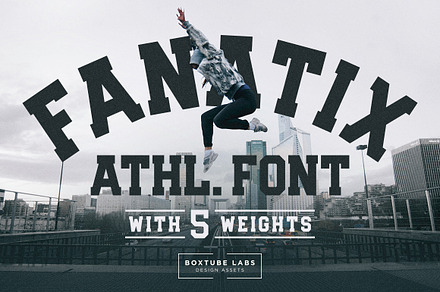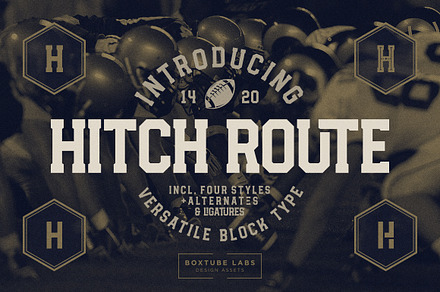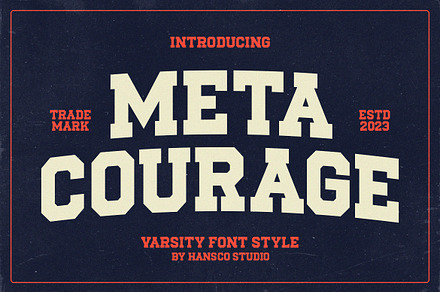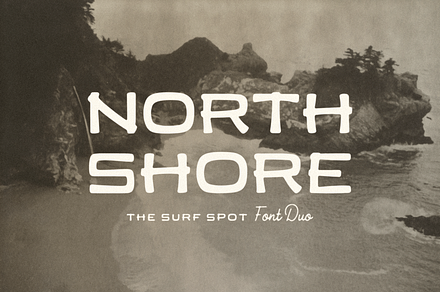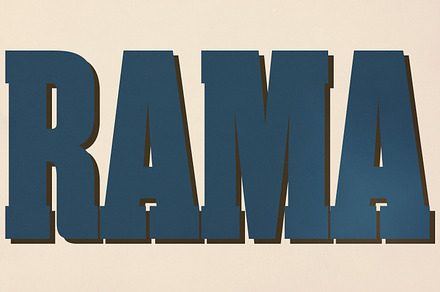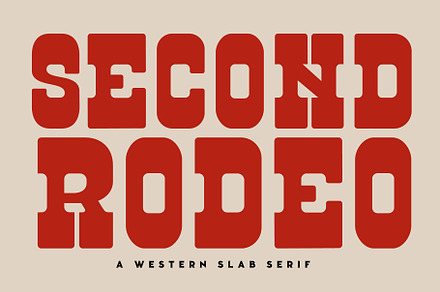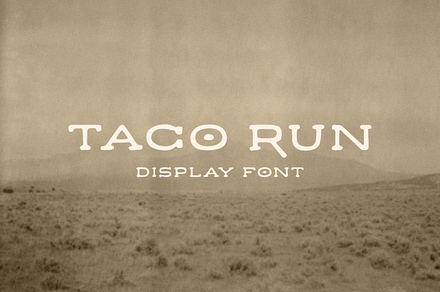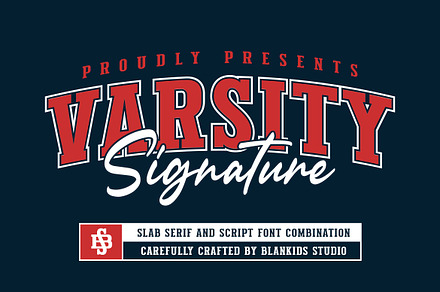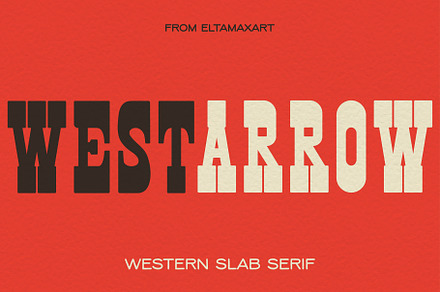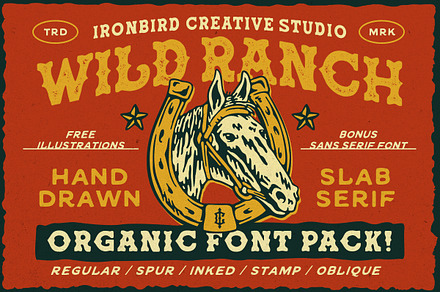
Slab serif typefaces are defined by their sturdy, block-like serifs—a design feature that gives them an undeniable sense of weight and permanence. This versatile style is perfect when a design requires immediate impact, making it an industry standard for powerful headlines, posters, signage, and brand identities. Whether you aim for the nostalgic charm of early 20th-century Americana or a crisp, modern edge, these robust serifs provide stability and undeniable character that elevates any project from basic to breathtaking.
This curated collection offers unparalleled variety within the slab serif aesthetic. You will find specialized fonts like Rama Slab and Second Rodeo for classic vintage looks, alongside Wild Ranch and West Arrow for rugged Western flair. For sports-themed projects, Meta Courage, Fanatix, and Hitch Route provide perfect varsity and athletic vibes. Furthermore, options such as North Shore + Mavericks and Varsity Signature ensure you have the ideal typographic pairing to complete any branding endeavor.
Rama Slab
Need a font that captures the nostalgic charm of the 19th century? Rama Slab is an antiqued slab serif typeface, evoking the distinct look of classic wood type. This condensed and impactful font is perfect for designing striking titles, professional posters, or any layout demanding a bold, vintage presence. With 18 comprehensive styles available, designers can easily adjust the tone while maintaining visual strength. Furthermore, the inclusion of an alternate 'r' glyph via OpenType features grants superior typographic control when crafting sophisticated, headline-focused branding projects.
North Shore + Mavericks
Capture that ultimate tropical vibe with the North Shore + Mavericks font duo. Perfect for capturing a mid-century surf aesthetic, this pairing offers versatility for bold branding projects. Use North Shore as a striking tropical display font for major headers and signage, while Mavericks provides elegant flare through its hand-lettered script. Ideal for designing album covers, apparel graphics, or unique web layouts that demand a groovy, nostalgic touch. This combination delivers comprehensive language support across multiple locales, making it essential for global branding needs.
Meta Courage Varsity Font
Meta Courage Varsity Font captures the authentic energy of classic athletics and team spirit. Designed specifically as a robust varsity or jersey display font, it provides immediate visual impact for sporting goods and school-related branding. Use Meta Courage to create compelling headers, sportswear logos, or merchandise designs that embody strength and tradition. Its bold structure makes it perfect for capturing the excitement associated with games day and team pride. Integrating this distinctive collegiate typeface instantly elevates any project requiring a powerful, athletic aesthetic.
Second Rodeo
Embrace a genuine retro feel with Second Rodeo, a distinctive Western slab font featuring sharp lines and undeniable character. This display typography is perfect for designers seeking authentic vintage flair in their branding projects. Utilize its robust structure to create compelling headlines, powerful logotypes, or memorable stickers. Beyond print media like packaging design and posters, Second Rodeo excels on apparel and merchandise, giving your brand identity a rustic, old-west edge. Pair it with modern graphics for unique websites or magazine layouts that demand high visual impact.
Fanatix - Display Font
Fanatix excels as a dynamic display font, delivering a modern edge perfect for high-impact branding and athletic design. This versatile sports typeface supports everything from corporate logos and apparel graphics to striking poster layouts. With weights spanning Thin through Heavy, designers can achieve depth and visual hierarchy in their projects. Furthermore, the unique Inline and Triline styles provide instant creative variations, ensuring your final designs stand out. Excellent language support across Western languages makes Fanatix an ideal choice for international branding needs.
West Arrow - Western Font
Need a font that captures the rugged spirit of the Wild West? West Arrow is a hand-drawn Western typeface featuring robust slab serifs and original shapes reminiscent of classic frontier signage. This versatile, retro vintage font provides an immediate sense of Americana, making it perfect for branding projects demanding authentic historical flair. Integrate West Arrow into designs for saloon posters, western apparel lines, or rustic menus to evoke genuine nostalgia. Its strong, distinct character makes headlines pop, giving your digital work the undeniable grit and style of a bygone era.
Varsity Signature a font Combination
Varsity Signature delivers a dynamic, sporty font combination perfect for athletic branding and collegiate themes. This versatile typeface makes creating high-impact logotypes, promotional posters, and product packaging simple. With three distinct styles—including script and outline options—it provides comprehensive versatility for any visual identity project needing an authentic varsity feel. Utilize this professional font in graphic software like Adobe Illustrator or Canva to instantly elevate your brand's aesthetic.
Taco Run
Inject some vibrant energy into your designs with TACO RUN, an extra spicy display typeface inspired by summer memories and local taco trucks. This bold, high-impact font is perfect for branding that needs personality and zest. Use it to power dynamic signage, catchy album covers, or eye-catching packaging design. Its powerful uppercase structure makes it ideal for restaurant menus, merchandise apparel, and memorable ad campaigns. Give your project a fun, flavorful punch with this unique lettering style.
Hitch Route - Display Font
Hitch Route is an incredibly versatile display font ideal for high-impact sports branding and dynamic logos. Balancing a classic feel with modern execution, this typeface provides designers with numerous ligatures and stylistic alternates, ensuring unique aesthetic results across any project. Utilize Hitch Route for striking magazine headlines, apparel designs, or detailed labels. The comprehensive package includes distinct Serif, Sans, Decor, and Stencil styles, while full Latin 1 support handles multiple Western languages effortlessly.